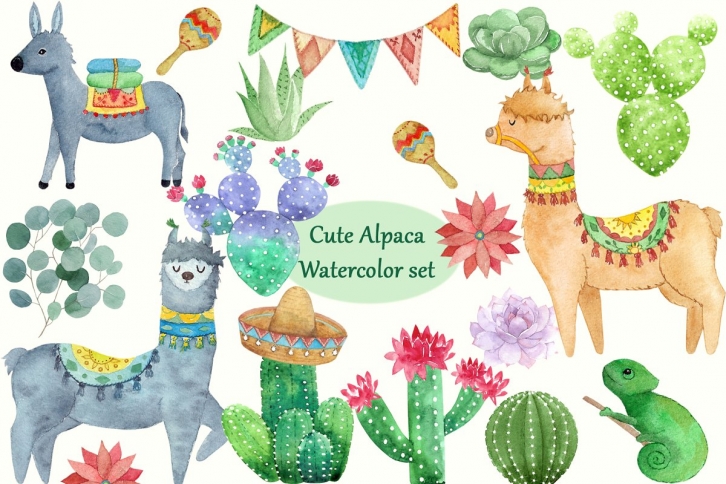
Cute Alpaca Watercolor Set is a great font that was designed by Lillys Watercolors. Imagine the amount of combinations you can create using this font! The archive is 11.70 MB and it was released on September 19, 2019. Cute Alpaca Watercolor Set looks beautiful on wedding invitations, greeting cards, logos, posters, labels, t-shirt designs, logos, business cards and is perfect for use in ink or watercolor works, fashion, magazines, packaging and food menus, children's books and more!